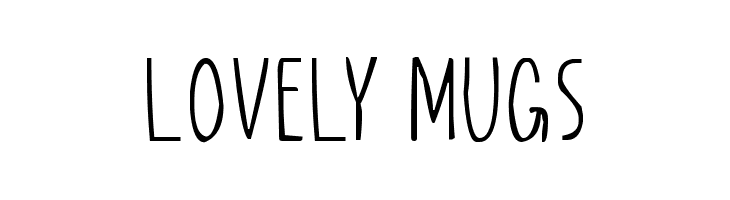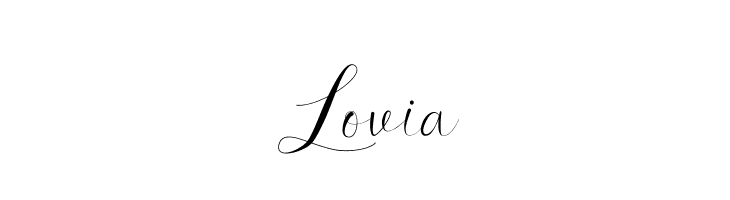
A playful, handwritten font with tall, narrow letters and a modern feel.
A modern, elegant script font with flowing cursive letters and sophisticated flourishes.
A modern-vintage font with elegant curves and sharp edges, ideal for sophisticated designs.
An elegant script font with flowing, connected strokes and a sophisticated appearance.
A playful, bold font with rounded uppercase and cursive lowercase letters.
A playful and romantic font with elegant curves and whimsical serifs.
An elegant script font with flowing, cursive letterforms and a refined aesthetic.
A playful, hand-drawn font with rounded, bold characters.
A playful and elegant cursive script font with flowing, graceful characters.
A graceful and elegant script font with flowing, cursive letters.